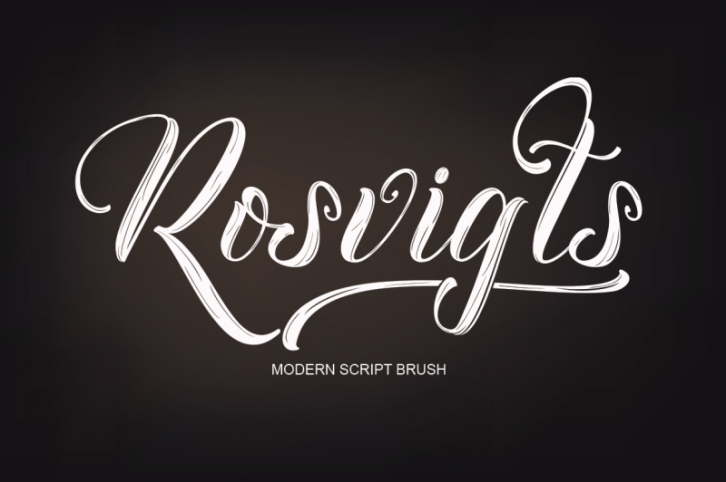
Rosvigts Script - Handmade brush font.
Rosvigts Script - Formed from a soft bristle brush. Modern classic typeface with a touch of elegance. and slicked neatly so it looks like a calligraphy typeface. which looks unique and some extra style different from other alphabets.
Rosvigts Script - comes with upper and lowercase characters, punctuation glyphs, numerals, web font, and supports international languages. Stylistic sets for several lower case characters are also available. perfect for variety of projects including: signatures, titles, logos, wedding invitations, letterhead, posters, mugs, typographic quotes over photos, book covers and packaging design and more. Type features can be accessed by using Open Type savvy programs such as Adobe Illustrator, Adobe InDesign, Adobe Photoshop Corel Draw X version, And Microsoft Word. And this Font has given PUA unicode (specially coded fonts). so that all the alternate characters can easily be accessed in full by a craftsman or designer.
Features included:
• Stylistice Set
• Basic Latin A-Z and a-z
• International Symbols Support